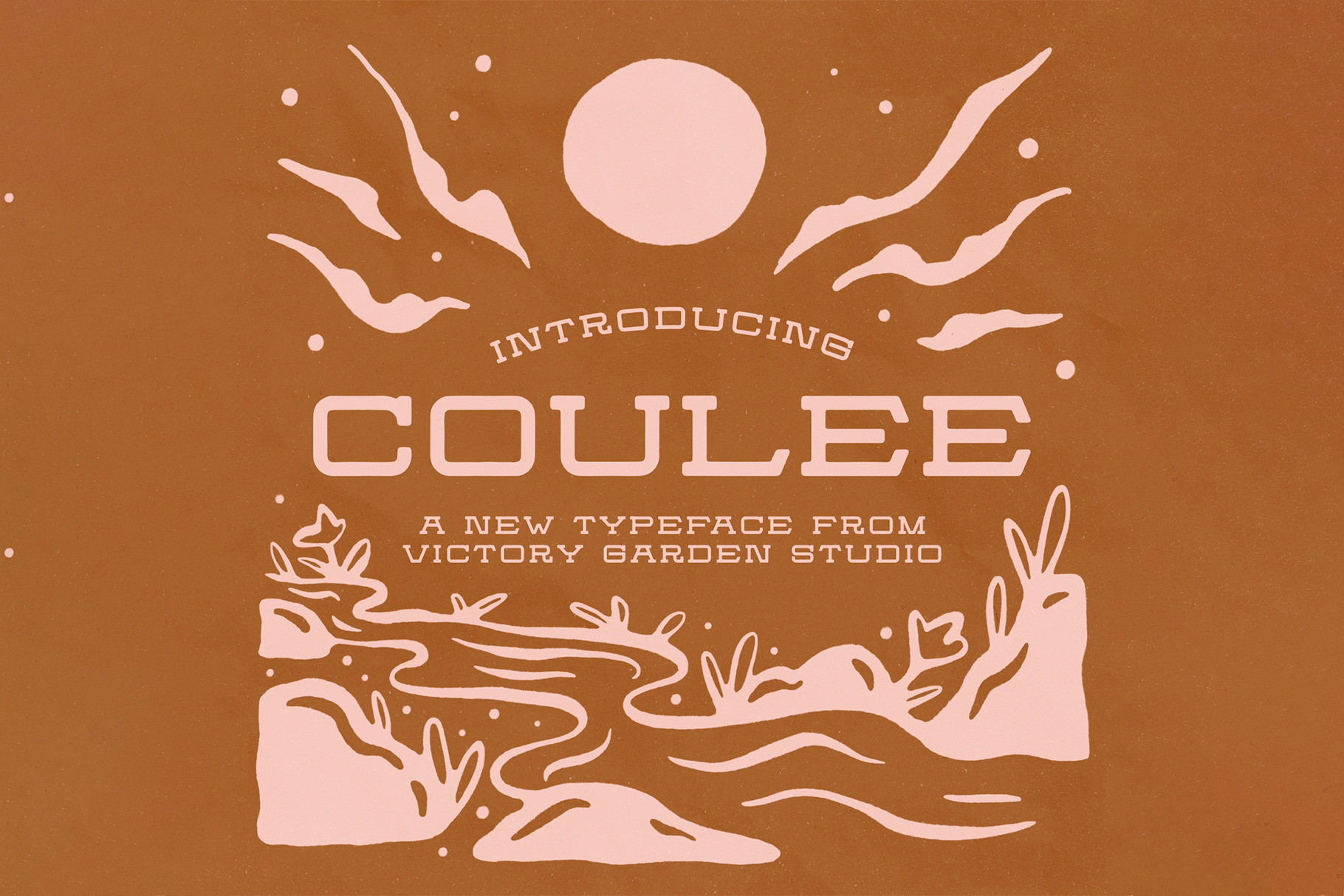
COULEE | Hand Drawn Slab Serif Font
Introducing VG Coulee!
A fun take on a classic slab serif! A little rugged, and inspired by adventure. Featuring Capital A-Z, Numbers 0-9, Punctuation, and Alternate Characters.